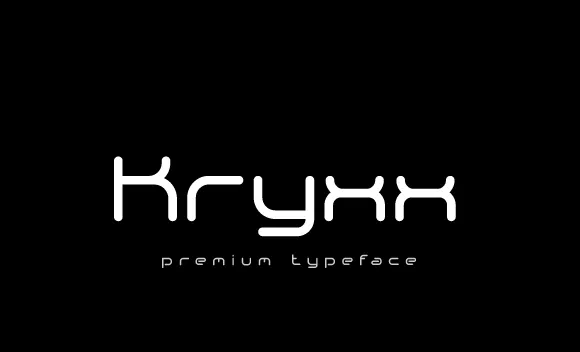
Kryxx Font is perfect for cyberpunk branding, futuristic gaming interfaces, sci-fi movie titles, dystopian novel covers, crypto technology logos, digital encryption campaigns, matrix-style designs, cybersecurity company materials, virtual reality promotions, and cutting-edge technological advertising.
Kryxx Font is exciting because it captures the mysterious essence of digital encryption and cyberpunk aesthetics through angular letterforms that convey technological mystery, digital security, and futuristic coding with cryptographic appeal. This digitally designed typeface combines cybersecurity elements with contemporary functionality, making it perfect for brands that want to communicate digital protection, encrypted communications, and high-tech security that safeguards valuable information.
The Kryxx Font family includes angular weights with encryption-inspired character styling, featuring digital design elements and cyberpunk decorative variations. The font showcases cryptographic design details, security-optimized proportions, and mysterious character characteristics that create a comprehensive typographic system for technology and security-focused brand applications.
Kryxx Font Free Download provides designers with access to premium cyberpunk typography that brings authentic digital security character to contemporary tech design projects. This expertly engineered typeface has been developed to capture the complexity and mystery of digital encryption while ensuring optimal performance in high-tech marketing applications. The font's cryptographic character and futuristic appeal make it ideal for cybersecurity brands and tech-focused organizations.
The digital sophistication of Kryxx Font makes it an invaluable tool for cybersecurity companies, blockchain organizations, and tech security providers that need typography capable of communicating digital protection and technological mystery. The font's encrypted character helps establish connections with audiences seeking secure digital solutions, cryptocurrency investments, and advanced technological protection that safeguards digital assets and personal information.
Cybersecurity firms, blockchain companies, and digital security providers consistently choose Kryxx Font for its ability to convey digital mystery and technological sophistication through typography. The font excels in applications where establishing security credibility and high-tech appeal are essential to brand positioning, making it particularly effective for cybersecurity services, digital protection, and crypto technology brands targeting security-conscious consumers.
This font's comprehensive character set includes encryption-inspired letterforms, digital numerals, cryptographic punctuation marks, and security symbols that support authentic cyberpunk typography composition. The consistent mysterious styling maintains the digital encryption theme throughout all characters while ensuring professional readability across all cybersecurity and tech design projects requiring Kryxx Font Free Download functionality.